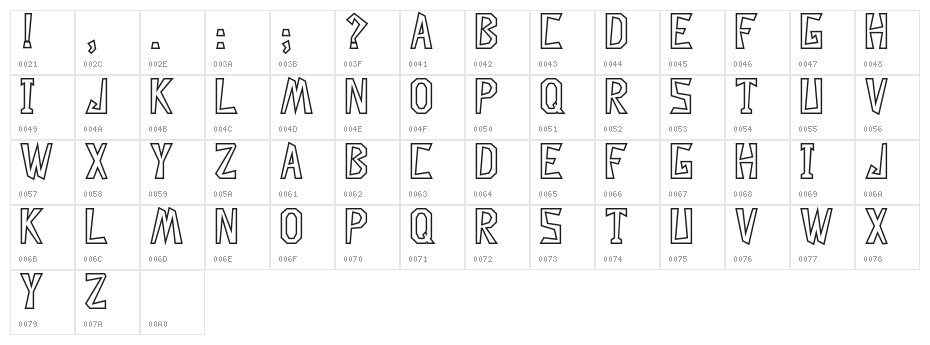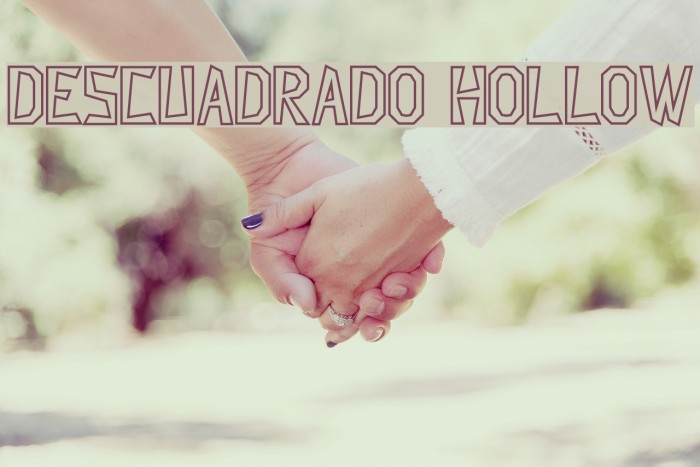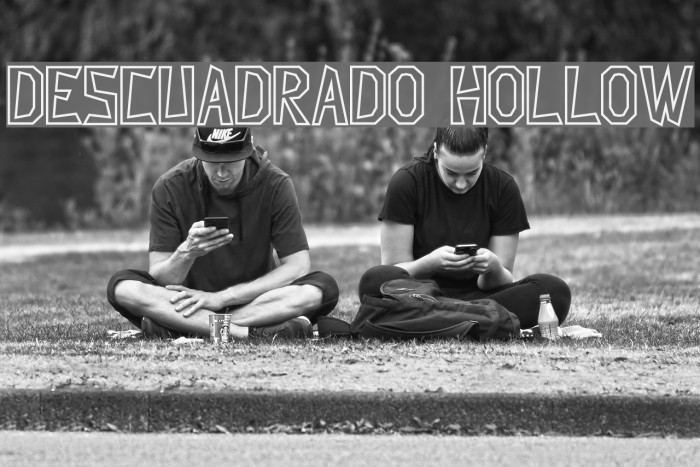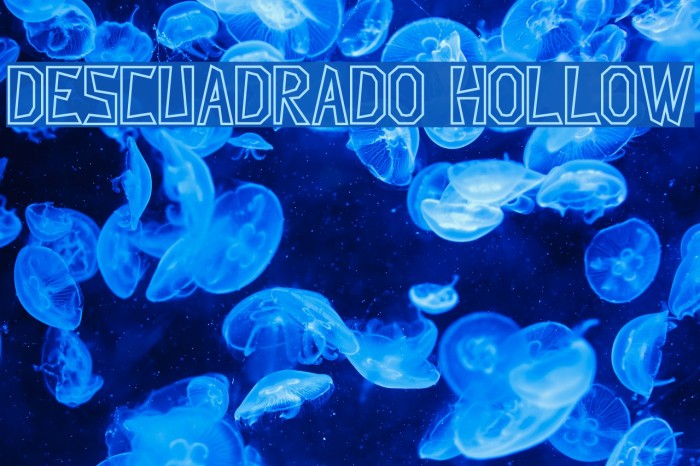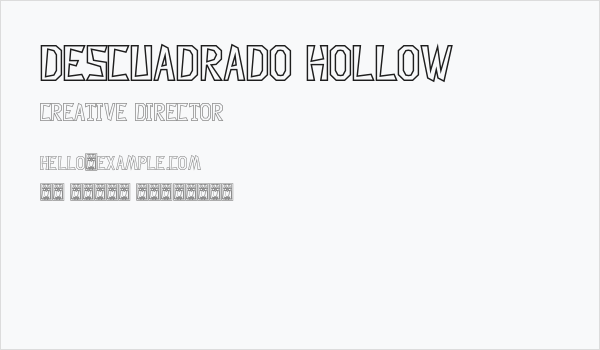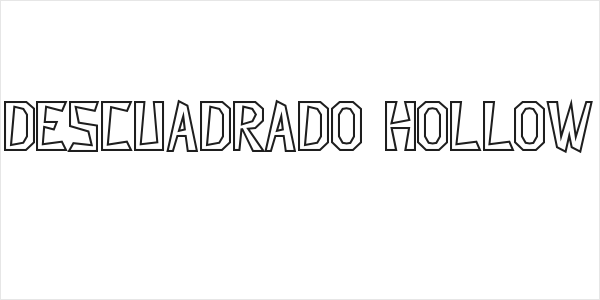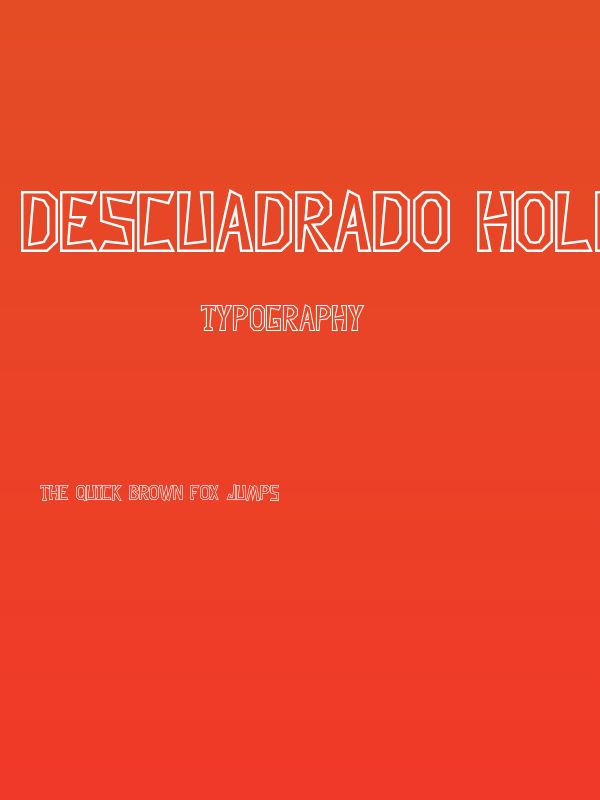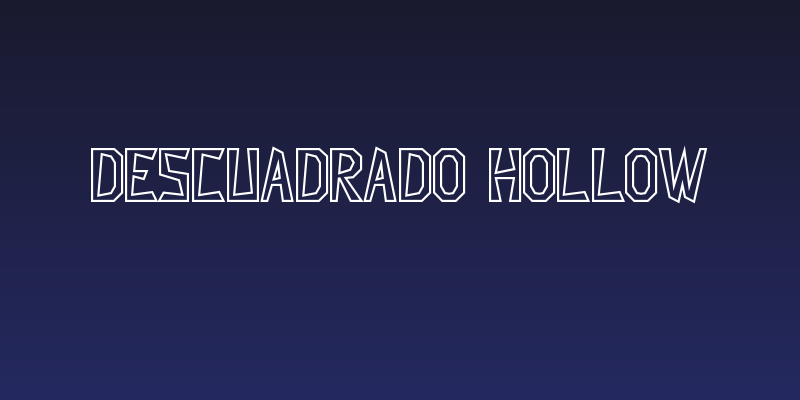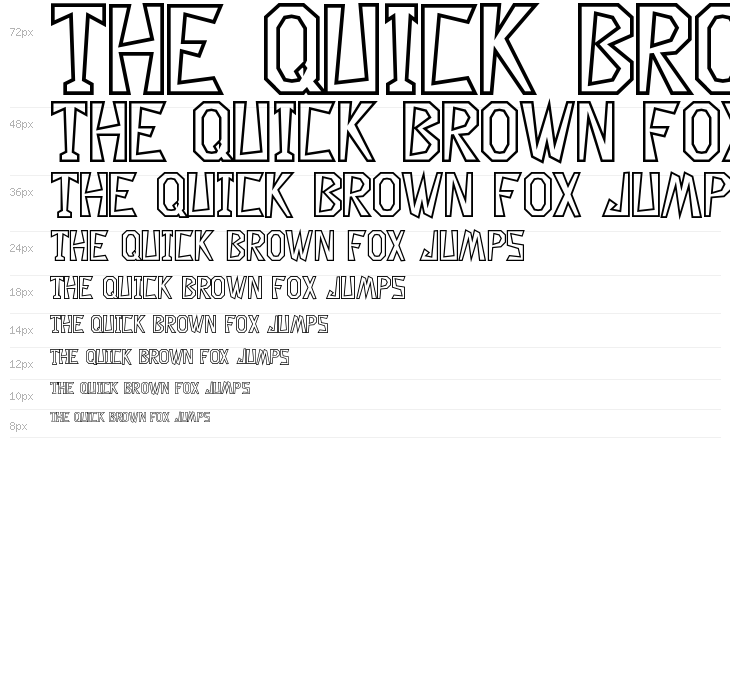
Descuadrado Hollow Font
Descuadrado Hollow Description
This font features a unique hollow design with an angular, geometric style. Each character is outlined with bold, sharp lines that create a sense of depth and dimension. The uppercase letters are particularly striking, with a dynamic and edgy appearance that stands out. The lowercase letters maintain the same angular aesthetic, providing consistency across the typeface. The numbers and special characters are equally bold and distinctive, making them ideal for attention-grabbing designs. This font's hollow nature gives it a modern, artistic flair, perfect for creative projects.
Jaime Rangel Castro